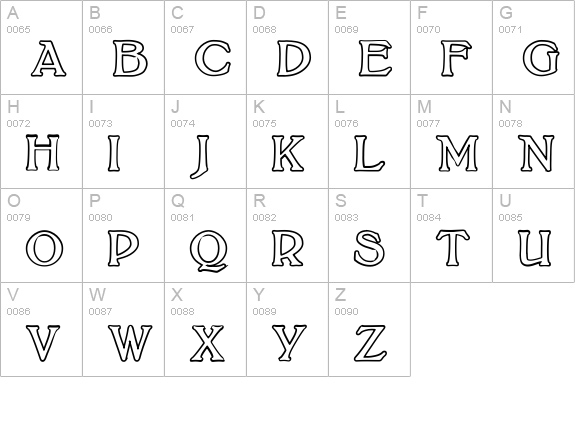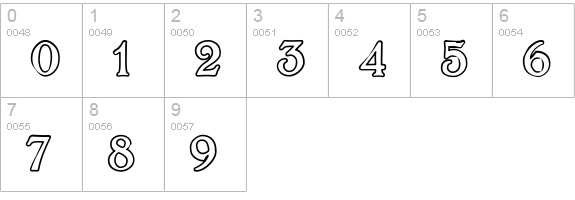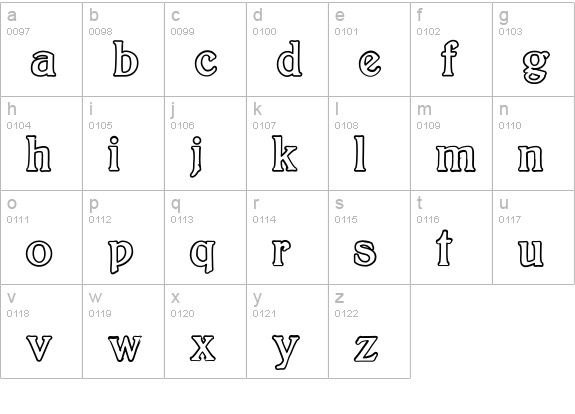
BoltonOutline Font Details
BoltonOutline font is a stylish and modern typeface that is perfect for a wide range of design projects. Its sleek and elegant outlines make it stand out on any platform, from print materials to digital designs. The font offers a unique and eye-catching look that is sure to capture attention. What makes BoltonOutline font even more appealing is that it is available for free download at FontsMarket.com. This means that you can easily access this versatile typeface without any cost, making it a great choice for both personal and commercial use. With its clean lines and contemporary feel, BoltonOutline font is a must-have addition to your font collection.